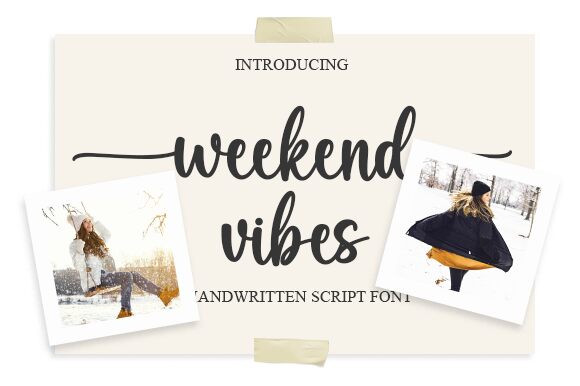
Weekend Vibes
Weekend Vibes, designed by Aldi Raya Pradipta is a beautiful script typeface with a calligraphy style. Perfect for creating stunning logos, wedding invitations, or social media posts!